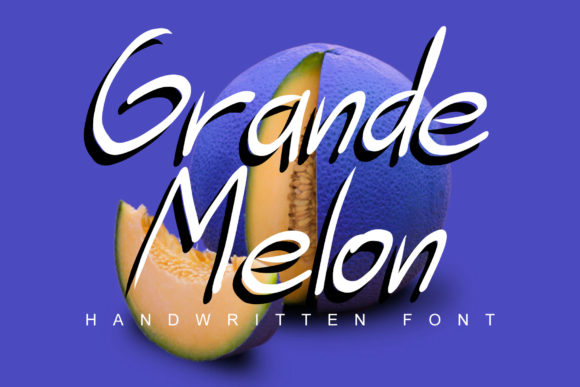
Grande Melon: A Friendly Handwritten Font for Brands
I still remember the afternoon I sat at my kitchen table, surrounded by stacks of plain white boxes and a roll of brown kraft paper. My small business was growing, but my branding felt stuck in the past. The labels were functional, sure, but they lacked soul. They didn’t tell the story of the care I put into every product. I knew I needed a change, something that could bridge the gap between professional polish and personal warmth. That is when I discovered Grande Melon, a sweet and friendly handwritten font that completely shifted how my customers perceive my brand.
Choosing the right typeface is one of the most impactful decisions a business owner can make. It is not just about making words readable; it is about setting a mood. Grande Melon belongs to the Script Handwritten category, but it avoids the overly formal or rigid structures often found in traditional calligraphy. Instead, it offers a natural, unique style that feels like it was written by a human hand with a genuine smile. For entrepreneurs, creators, and boutique owners, this distinction matters. It transforms cold digital text into an inviting conversation.
Why Personality Matters in Packaging Design
In the world of online selling and handmade goods, your packaging is often the first physical touchpoint a customer has with your brand. Before they even open the box, they see the label. If you are running a bakery, a candle shop, or a skincare line, the typography on your jar or box sets the expectation. Is your brand serious and clinical? Or is it warm, approachable, and crafted with love?
Grande Melon leans heavily into the latter. Its rounded curves and consistent stroke weight create a sense of reliability and friendliness. When I switched my product labels to use this premium font, the feedback was immediate. Customers mentioned that the packaging felt more "personal." This is the power of a well-chosen handwritten font. It breaks down the barrier between seller and buyer, making the transaction feel less like a purchase and more like a gift from a friend.
For those working in packaging design, versatility is key. You need a typeface that works on a small sticker for a lip balm tube and looks equally stunning on a large tote bag. Grande Melon handles this scale beautifully. While it is primarily a display font, meaning it shines in headlines and short phrases, its clarity ensures it remains legible even when scaled down for modest labels. However, always test your prints. What looks sharp on a high-resolution monitor might need slight adjustments when printed on textured paper or curved surfaces.
Building a Consistent Brand Identity Across Platforms
A common mistake many small business owners make is using different fonts for different platforms. Your Instagram stories might use one style, your website banner another, and your business cards a third. This inconsistency dilutes brand recognition. Grande Melon helps solve this by serving as a versatile anchor for your brand identity.
Consider how you can apply this creative font across your various design assets:
- Social Media Graphics: Use Grande Melon for quote overlays, sale announcements, or new product teasers. Its friendly nature encourages engagement and shares.
- Website Banners: A welcoming headline in Grande Melon can immediately set the tone for your homepage, making visitors feel comfortable exploring your offerings.
- Thank-You Cards: There is nothing quite like a handwritten note to build loyalty. Using this font for printed thank-you cards adds that personal touch without requiring hours of actual handwriting.
- Menus and Flyers: If you own a café or offer local services, Grande Melon works wonderfully for menu headers or flyer titles, guiding the eye without overwhelming the reader.
By maintaining this visual consistency, you become more recognizable. When a follower sees that specific sway and curve in their feed, they know it is you before they even read the name. This trust is built over time through repeated, positive visual experiences.
Smart Font Pairing for Modern Typography
While Grande Melon is stunning on its own, it truly comes alive when paired correctly. One of the golden rules of modern typography is contrast. Since Grande Melon is a script with organic movement, it pairs best with clean, structured fonts that provide stability.
For a look that is both elegant and contemporary, try pairing it with a minimalist sans serif font. The simplicity of the sans serif allows the personality of Grande Melon to take center stage without competing for attention. This combination is ideal for logo design where you might have the brand name in the script and a tagline or descriptor in the clean sans serif. Alternatively, if you are aiming for a more vintage or editorial vibe, a light serif font can complement the curves of the script, adding a touch of classic sophistication.
Avoid pairing it with other busy scripts or highly decorative display fonts. Clutter creates confusion, and confusion kills conversion. Keep the supporting text simple and let Grande Melon be the star. This approach ensures your editorial design and marketing materials remain easy to read and visually balanced.
As you continue to build your brand, remember that every detail counts. The right font can turn a simple label into a memorable experience. With Grande Melon, you are not just choosing a typeface; you are choosing to present your business as warm, trustworthy, and uniquely yours. Let your imagination guide you, and watch how this simple change can elevate your entire visual presence.